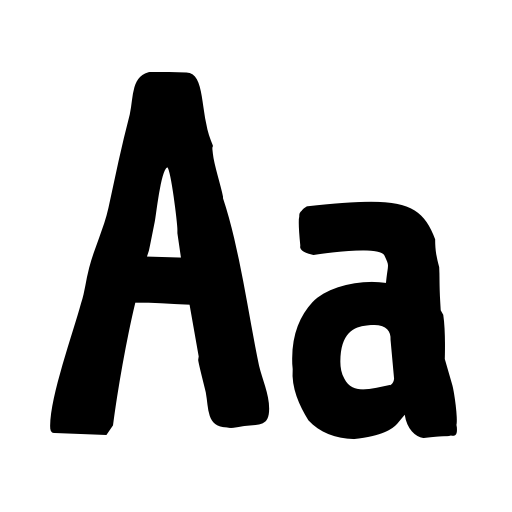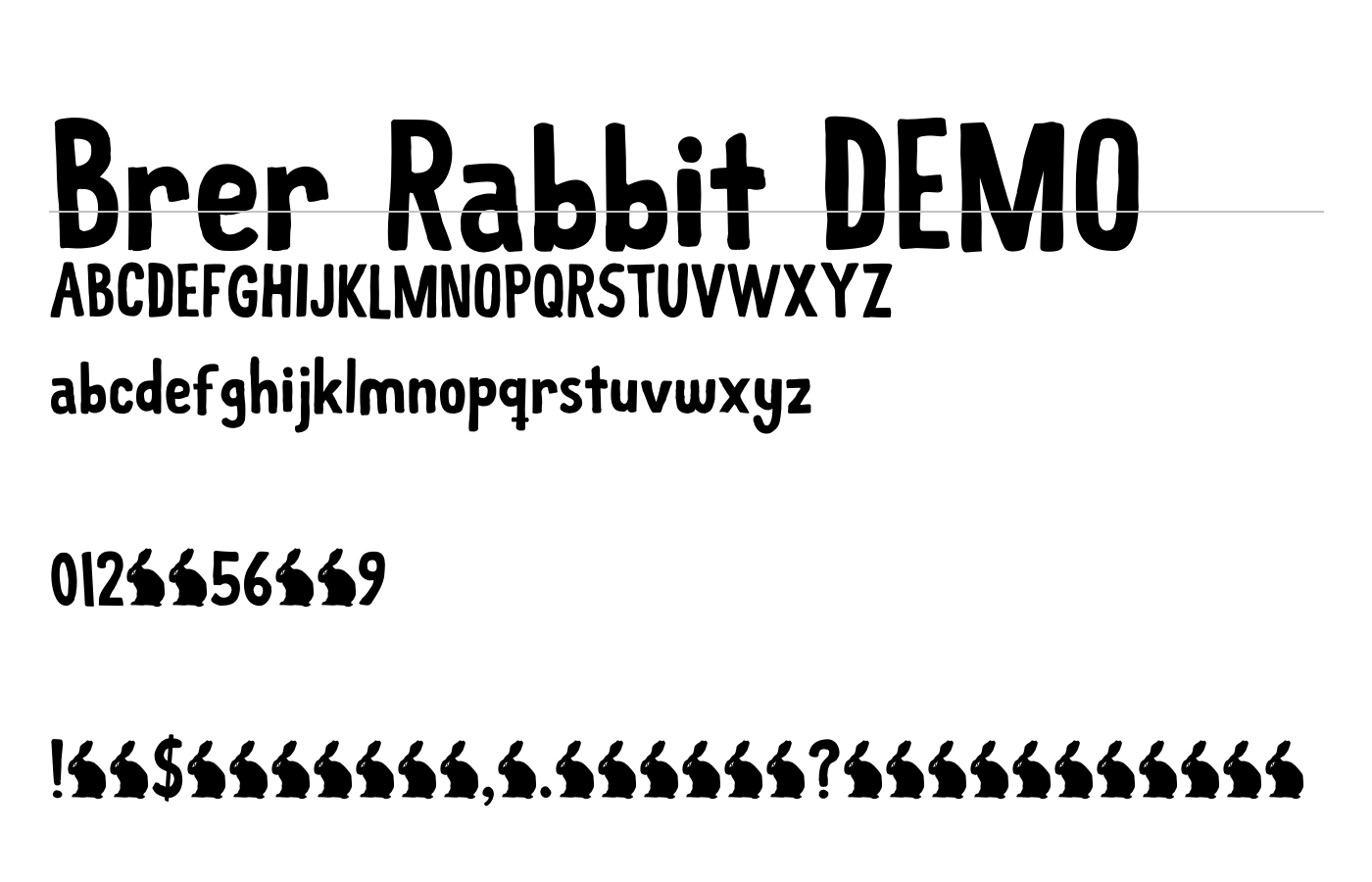
Brer Rabbit DEMO is a playful and casual sans serif font with a hand-drawn feel, featuring uneven stroke widths and quirky irregular shapes that give it a friendly, informal vibe. Its tall, narrow characters and slightly rough edges make it ideal for designs that want to convey a fun, approachable personality, perfect for children's books, creative brands, or lighthearted headlines. This font stands out with its unique charm and distinctive style, bringing a warm, human touch to any project.
Brer Rabbit DEMO Font
About Brer Rabbit DEMO Font